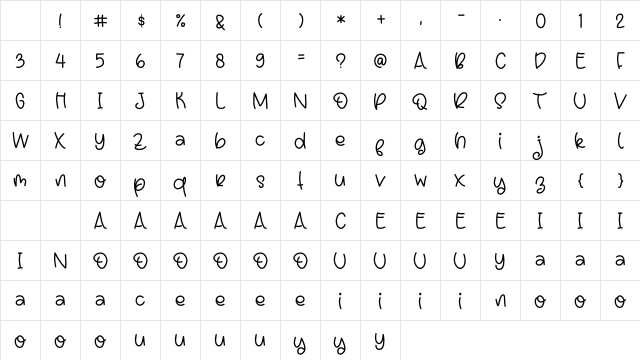
Complete Chillin Ice Cream Regular glyph index. Displaying only characters natively supported by Chillin Ice Cream Regular font.
Chillin Ice Cream is a composed and adaptable typeface that performs quietly and consistently across a wide range of design contexts.